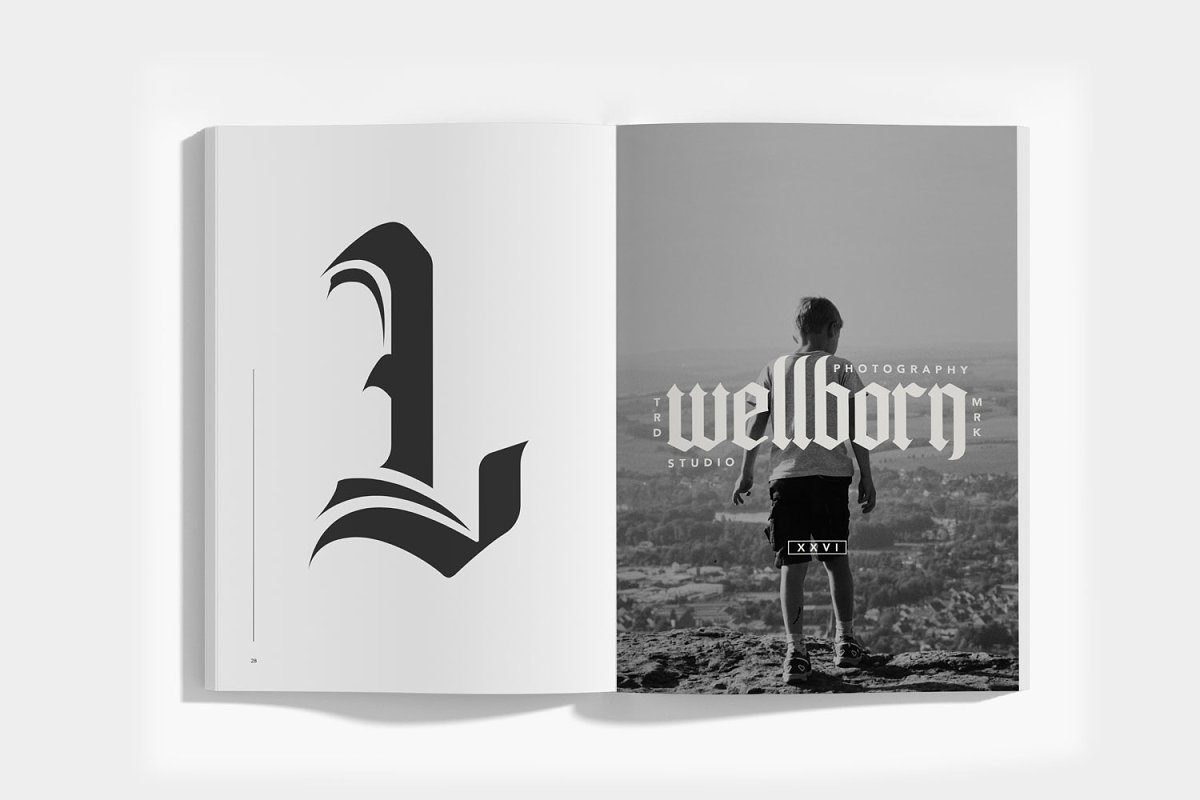
About the Pollyester Blackletter Typeface Font
Introducing Pollyester Blackletter Typeface FontPollyester Blackletter Font is a handmade Modern Victorian handlettering, which is combining modern and classic typography with some awesome alternates, Yes we back to early 1800s, bring classic touch on this decade, Font Include:Pollyester (OTF)Pollyester (TTF)WEB FONTLigaturesStylisticWorks on PC and MacSimple InstalationFonts include multilingual supportThanks for use this font